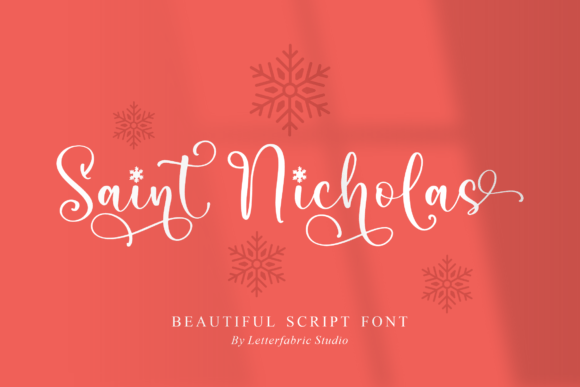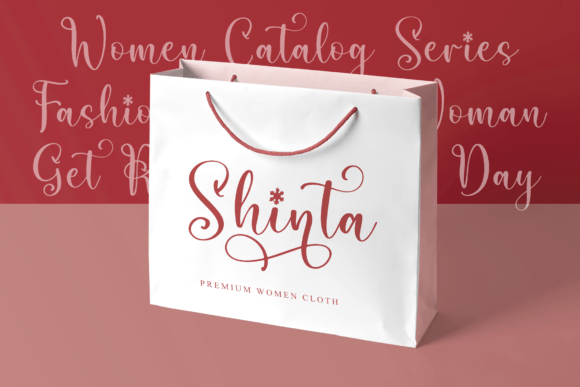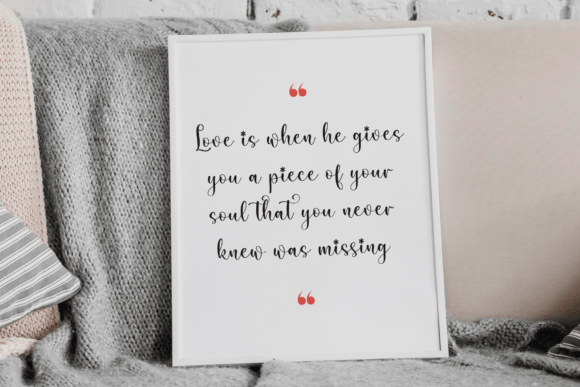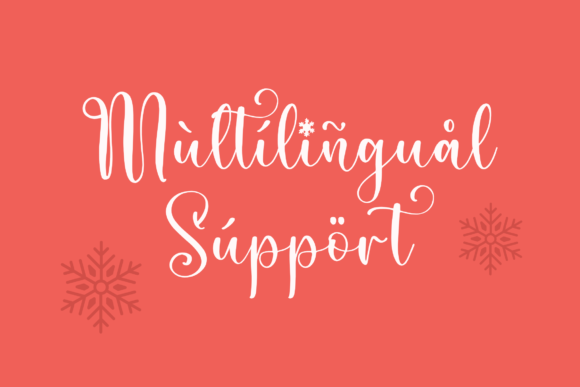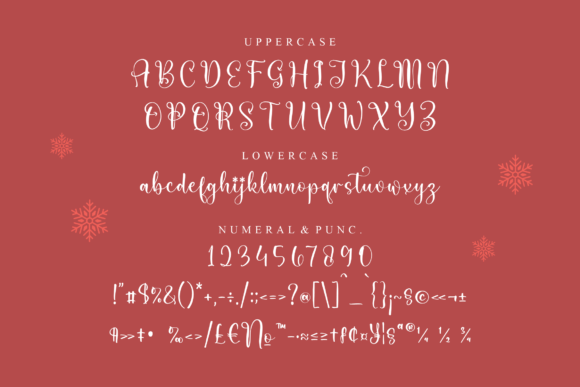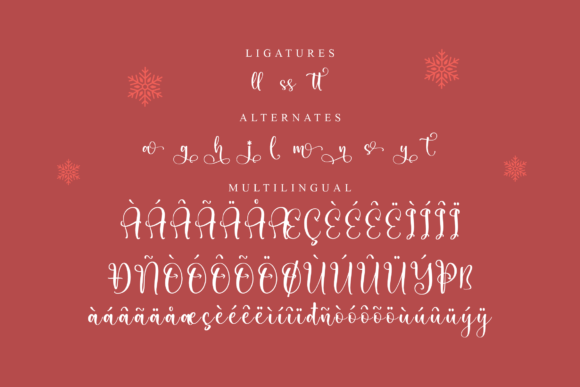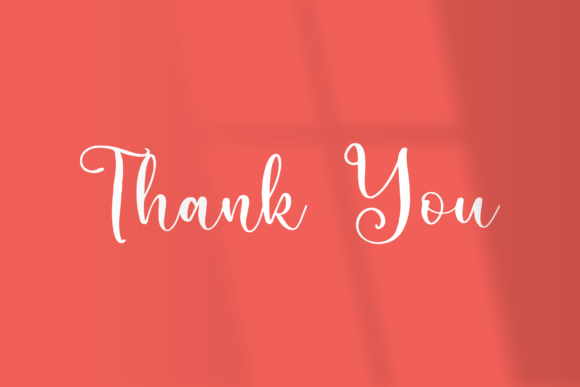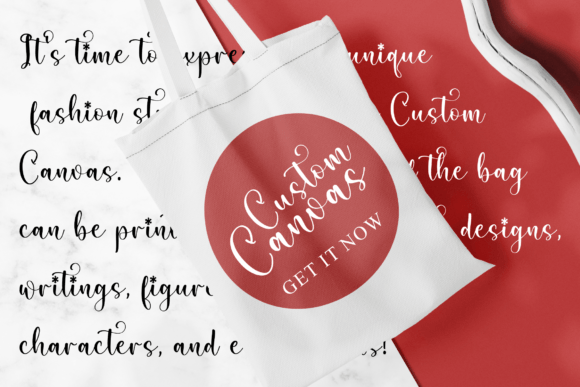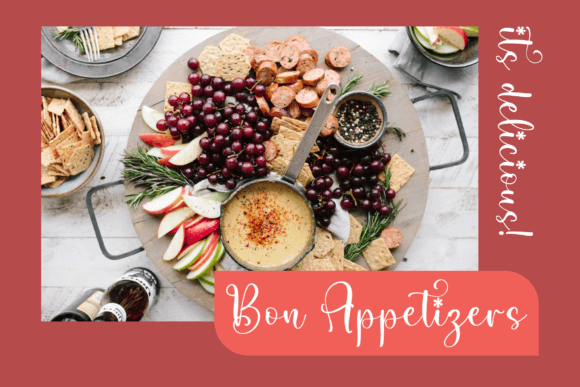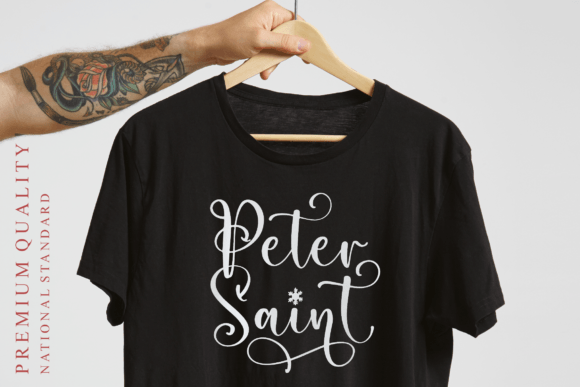
Saint Nicholas Font
About Saint Nicholas Font
The Saint Nicholas Font Download is a beautiful handwritten script typeface designed to bring elegance, warmth, and charm to any creative project. With its graceful flow and modern handwritten style, this font is both versatile and professional, making it a perfect choice for branding, event stationery, packaging, and much more.
Crafted with balance and precision, Saint Nicholas blends a natural handwritten touch with stylish sophistication. Its clean yet artistic strokes make it stand out across both digital and print designs. Whether you are working on logos, product packaging, apparel, or social media graphics, Saint Nicholas ensures your work is polished, unique, and eye-catching.
Features of Saint Nicholas Font
• Beautiful handwritten script style with modern elegance
• Smooth flowing strokes that add charm and versatility
• Full character set including uppercase, lowercase, numerals, and punctuation
• Professional readability across digital and print media
• Adaptable design for both casual and formal projects
Best Uses for Saint Nicholas Font
• Logos and branding – Build a stylish and timeless brand identity
• Wedding invitations and stationery – Add elegance to romantic celebrations
• Product packaging – Ideal for cosmetics, food, or artisan goods
• Posters and flyers – Create bold and stylish event promotions
• T-shirts and apparel – Perfect for fashion designs and custom merchandise
• Book covers and magazines – Elegant typography for modern publications
• Social media graphics – Add style to Instagram posts, Pinterest pins, and banners
• Event promotions and labels – Enhance marketing and product displays with flair
Why Choose Saint Nicholas Font
The Saint Nicholas Font Download stands out because it delivers a balance of modern style and handwritten authenticity. Unlike fonts that are either too decorative or overly minimal, Saint Nicholas offers both beauty and clarity. Its artistic strokes make it perfect for projects that require a personal yet professional touch.
Designers love Saint Nicholas for its timeless charm, adaptability, and smooth readability. It’s equally suitable for high-end branding campaigns or casual creative projects, making it a must-have for any font library.
The Saint Nicholas Font Download is a beautiful handwritten script designed to bring elegance, creativity, and warmth to your projects. With its versatile style and polished details, it’s the perfect typeface for invitations, logos, packaging, apparel, social media, and more.